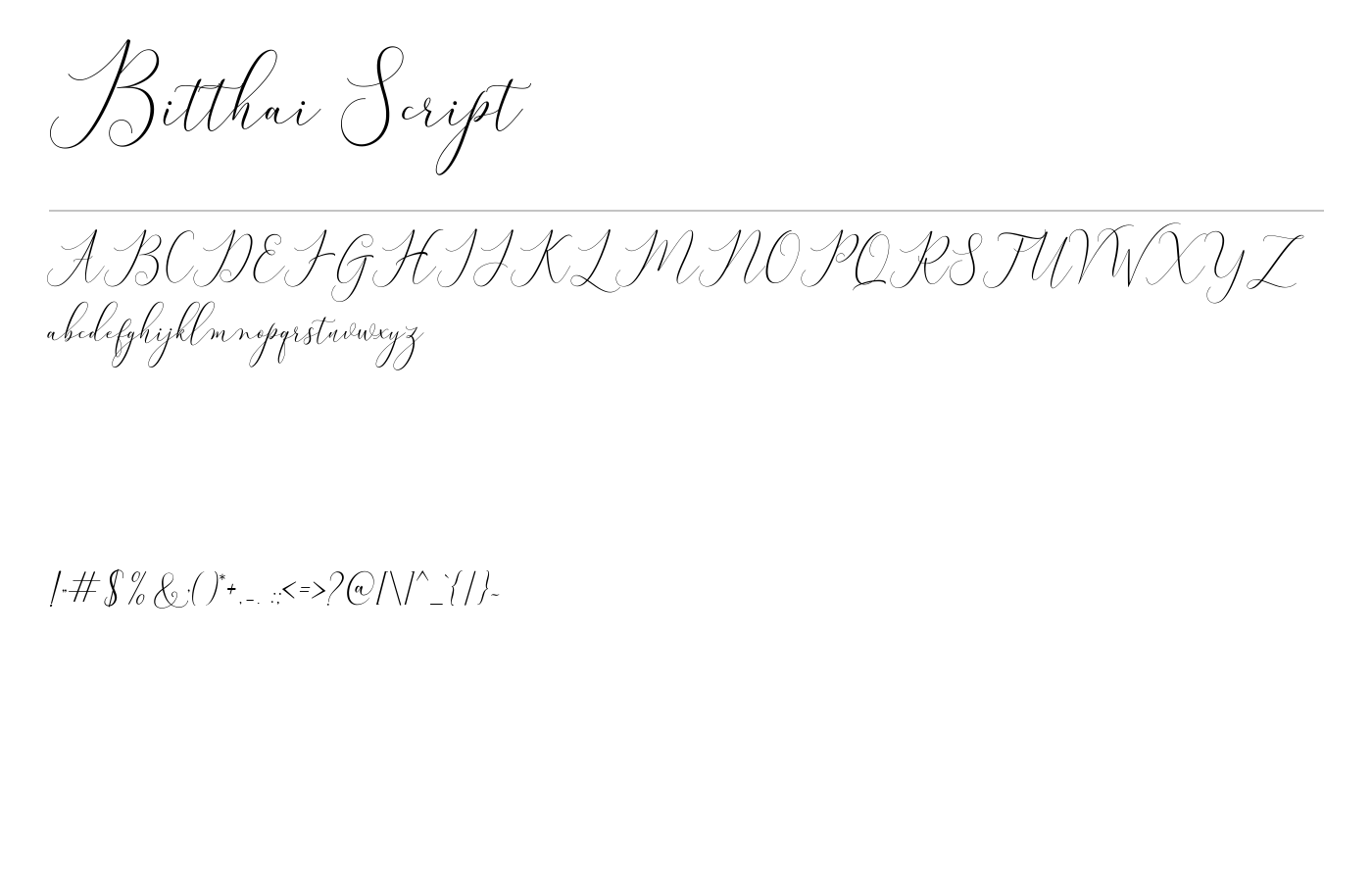
Bitthai Script is a delicate and elegant handwritten script font characterized by its thin, flowing strokes and graceful, looping letterforms. Its light weight and high contrast between fine lines make it perfect for adding a sophisticated, romantic touch to invitations, branding, and upscale editorial projects. This font works beautifully in contexts where a refined and personal feel is desired, such as wedding materials or luxury packaging.
Bitthai Script Font
About Bitthai Script Font
| Font family | Bitthai Script Font |
| Designer | Amarlettering |